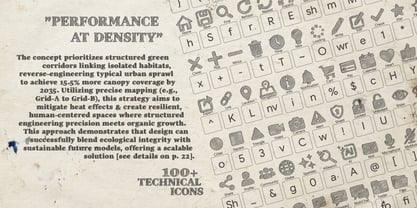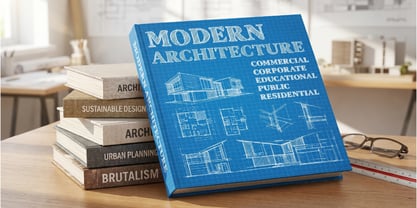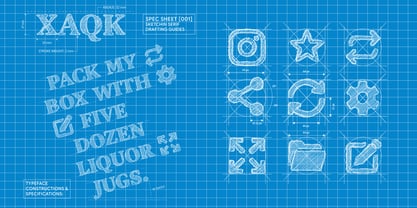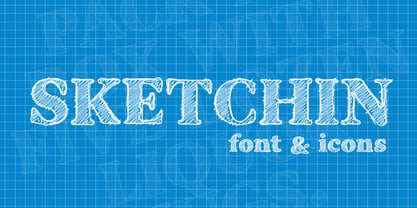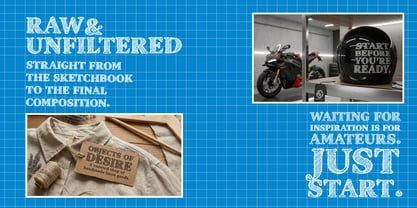
Sketchin
Sketchin: An Authentic Technical Sketched Design System
Sketchin is an expressive, hand-sketched typeface family built for designers who need to bridge the gap between human craftsmanship and industrial precision. Inspired by the raw, hatched aesthetic of architectural drafts and technical graphite drawings, Sketchin brings an authentic textured energy to digital environments without sacrificing professional utility.
The core of the system is a high-fidelity sketched typeface. Every character features meticulous pencil-style hatching, maintaining the natural pressure and overlapping strokes of a physical sketch. This results in a "Humanist Tech" personality, making it an essential building block for branding projects that require a tangible, drafted feel—from architectural guides and automotive identity to independent zine layouts and rugged streetwear labels.
Cohesive Iconography with Sketchin Icons
To provide a seamless design workflow, the family includes a dedicated icon font. Sketchin Icons features over 100 hand-sketched vector assets, perfectly matched to the stroke weight and hatched texture of the typeface. This ensures total visual harmony across your layouts, allowing for rapid prototyping of technical systems and UI elements directly from your keyboard.
Technical Specifications
• Extended Language Support: Includes full Western European character sets, essential currency symbols, and professional ligatures for global versatility.
• Optimized for Performance: Balanced point density ensures the authentic sketched texture remains crisp and performant across both print and digital media.